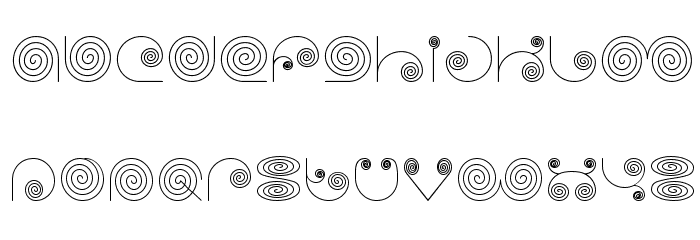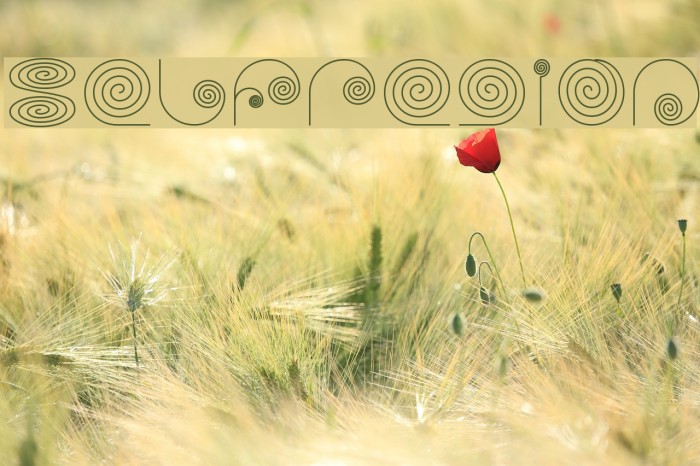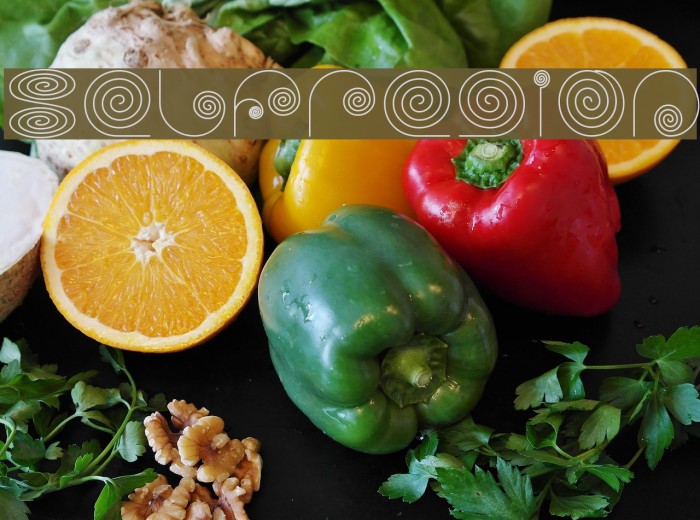
selfregion Font
This font features a unique spiral design, where each character is crafted with intricate swirls and loops, creating a whimsical and artistic appearance. The letters are composed of thin lines that form elegant spirals, giving the font a playful yet sophisticated look. This style is consistent across both uppercase and lowercase letters, as well as numbers and special characters. The font's distinctive design makes it stand out, offering a creative and decorative touch to any project.
A whimsical font with intricate spiral designs and thin lines.
- Proposed Projects: Ideal for creative projects such as invitations, posters, and artistic branding where a decorative and unique style is desired.
- Use Case: Logos, Posters, Invitations